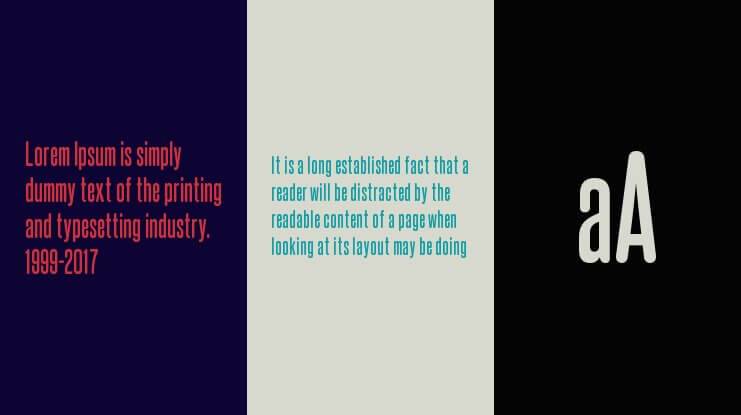
Steelfish Rounded font
Steelfish Rounded is a little headlining inspired by the renowned Steelfish typeface. Steelfish Rounded sans serif font avoids modern flourishes and antique decoration, allowing it to glide over historical and contemporary topics without notice. Almost all current Latin alphabet-based languages, as well as Greek and Cyrillic, are supported. The Font comes in two different formats: OTF and TTF. The font is designed and shared by typodermic fonts.
The Font works with Windows, Mac OS X, Linux, Cricut, Silhouette, and other cutting machines. This font is PUA encoded as well, which is a bonus for its users. The typeface may be used in a variety of ways depending on the needs of the designer, which is a nice feature that not many fonts have. The typeface looks great in any shape, whether it’s thin, bold, or a combination of the two. This is an excellent choice for beginners who need a versatile font to learn the fundamentals
| Name | Steelfish Rounded font |
| Style | Sans serif |
| Designer | typodermic fonts |